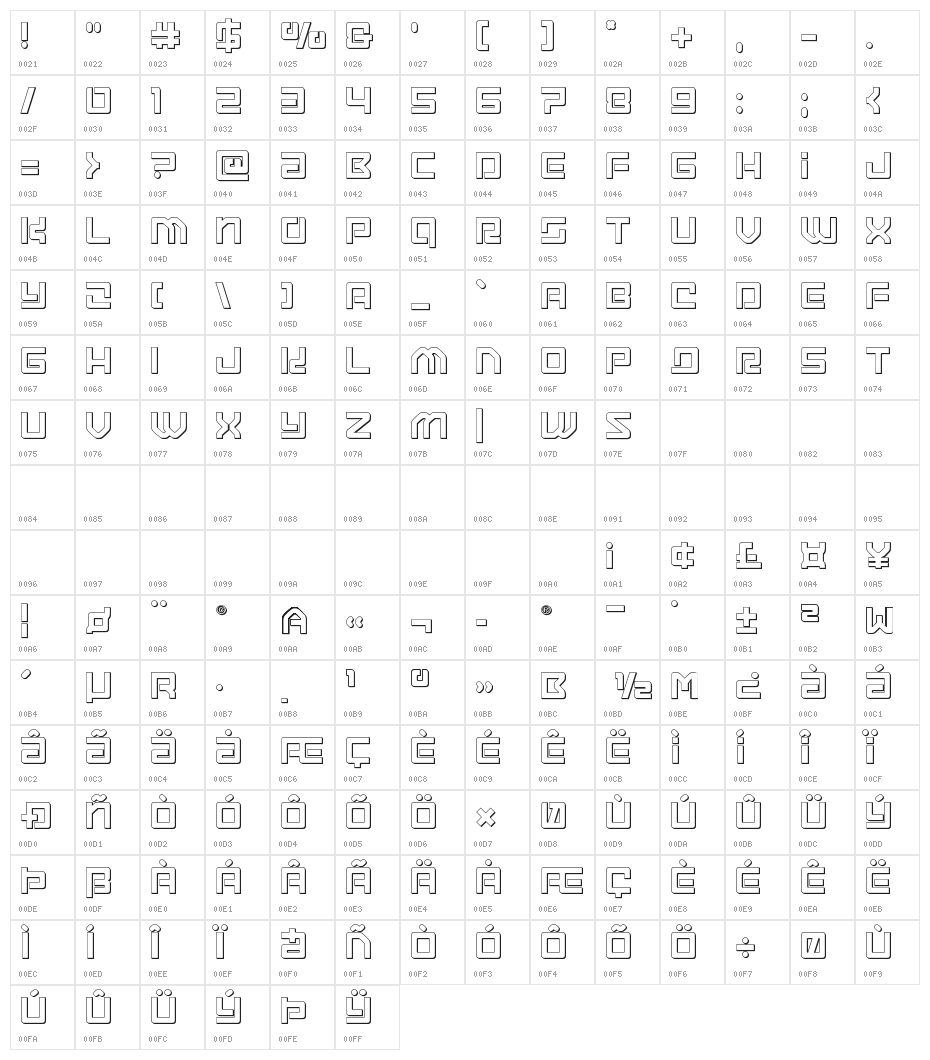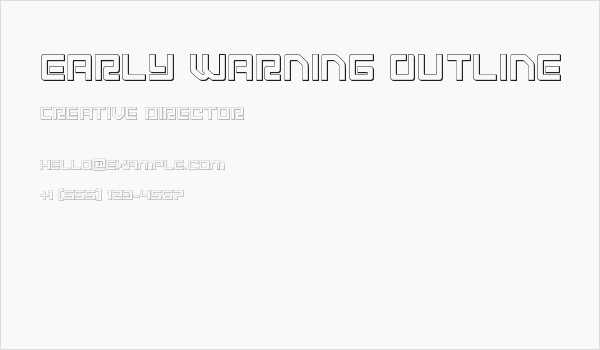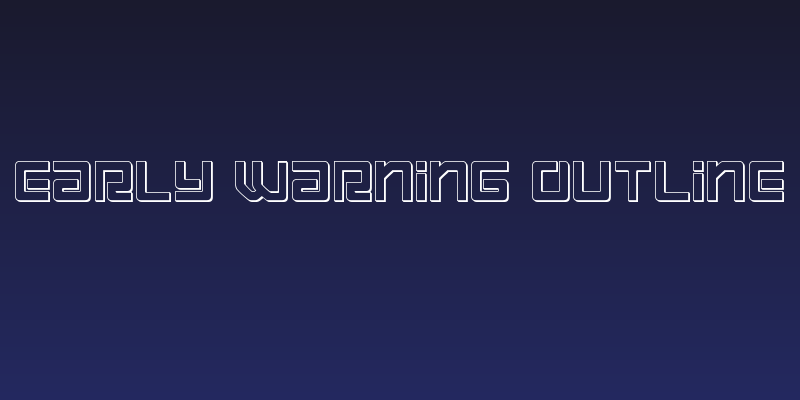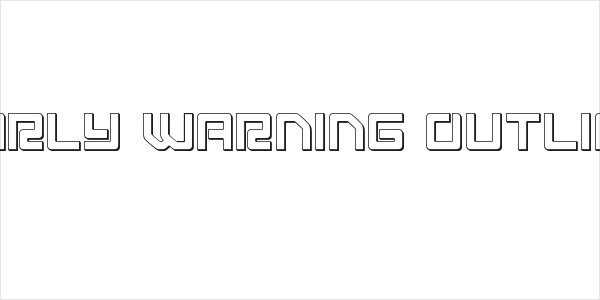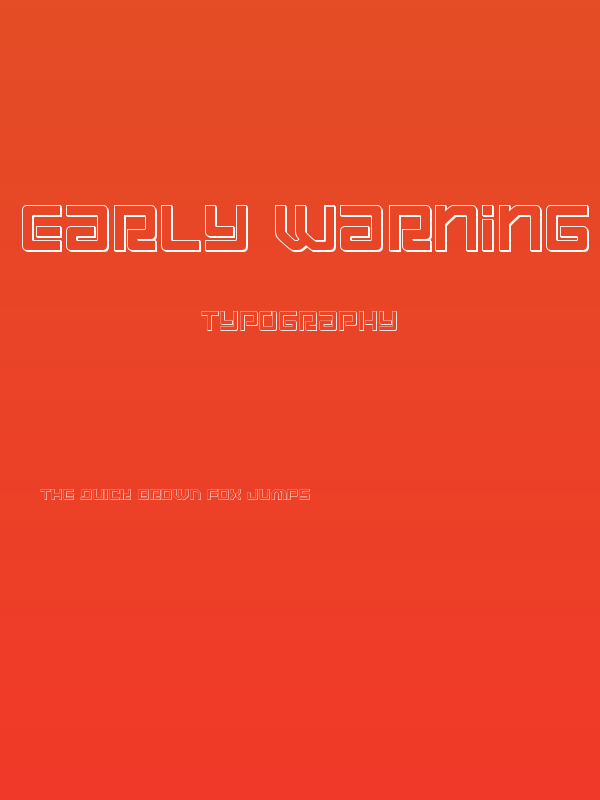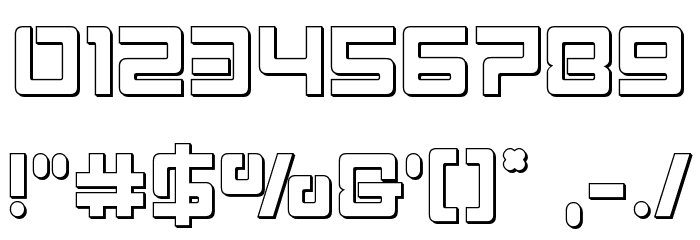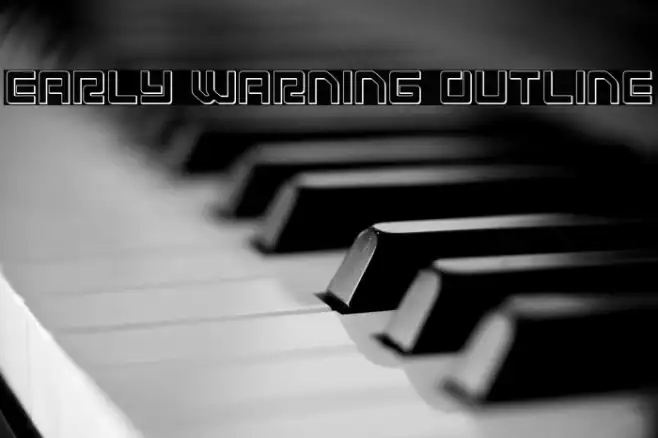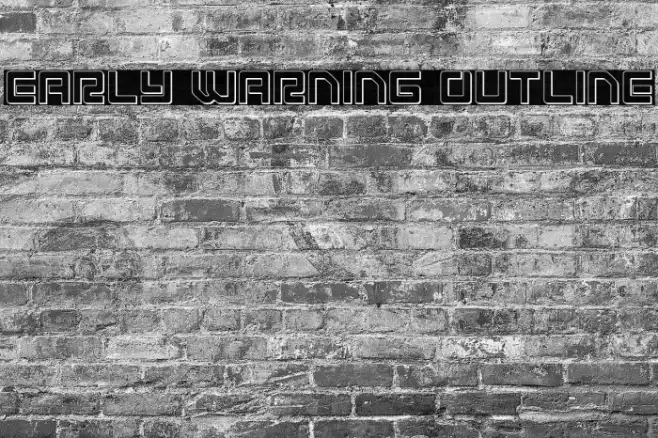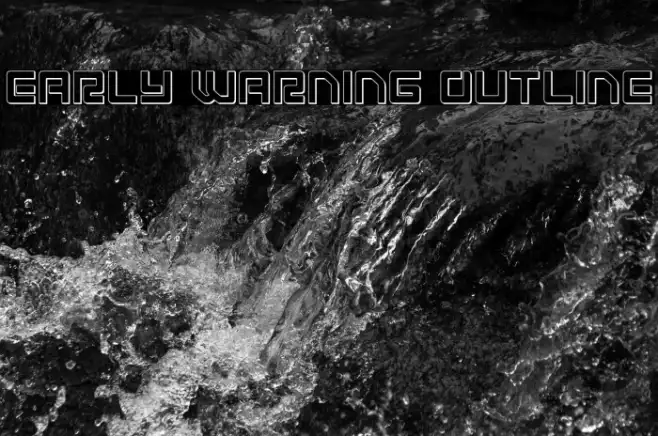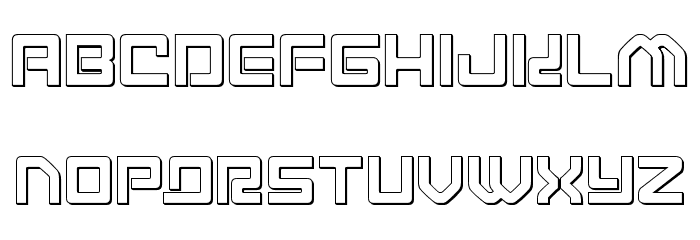
Early Warning Outline Font
Early Warning Outline Description
This font features a bold, geometric outline style with a futuristic and technical appearance. Each character is crafted with precision, showcasing a consistent line thickness that forms a hollow, outlined structure. The design is angular and structured, with sharp corners and straight lines dominating the aesthetic. The uppercase and lowercase letters maintain a uniform height, contributing to a cohesive and balanced look. Numbers and special characters follow the same design principles, ensuring a seamless integration across all text elements. This font is ideal for projects that require a modern and edgy feel, such as technology branding, sci-fi themes, or digital interfaces. Its unique outline style makes it stand out, offering a distinctive visual impact.
| Proposed Projects | Ideal for technology branding, sci-fi themes, digital interfaces, and modern design projects. |